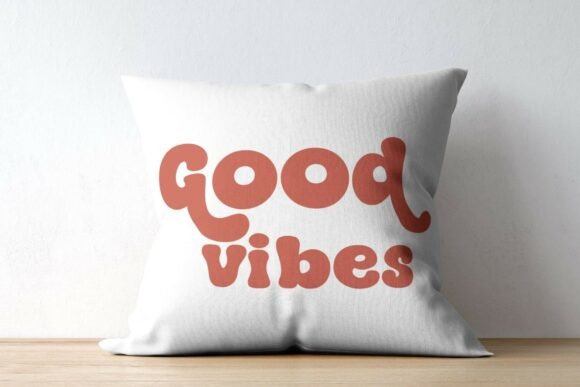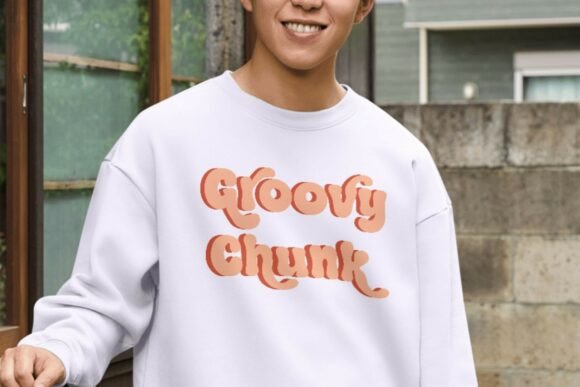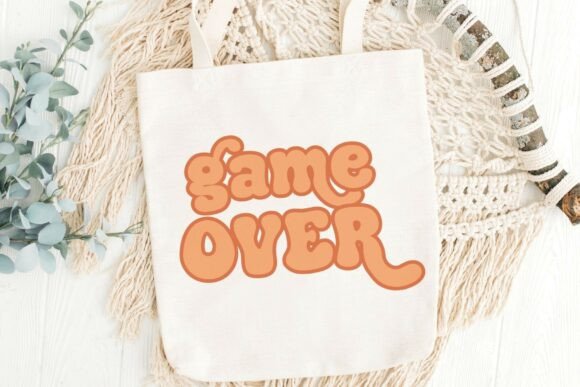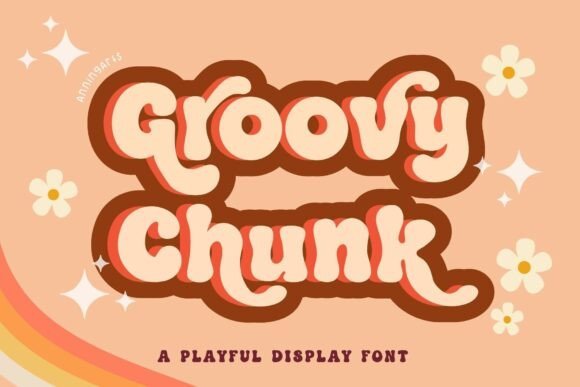
Introduction to Groovy Chunk Font
Groovy Chunk is a playful retro display font with bold and bubbly letterforms inspired by funky 70s vibes.
Its chunky curves and fun alternate characters make it perfect for standout headlines, groovy logos, t-shirts, mugs, stickers, and more This font includes uppercase, lowercase, numbers, and a set of fun alternates with curly tails and loops to spice up your designs.
Key Features of Groovy Chunk Font
Why Choose Groovy Chunk Font?
Groovy Chunk Font offers exceptional quality and versatility, making it a valuable addition to your design toolkit. Whether you’re creating for personal projects or commercial use, Groovy Chunk Font delivers professional results.